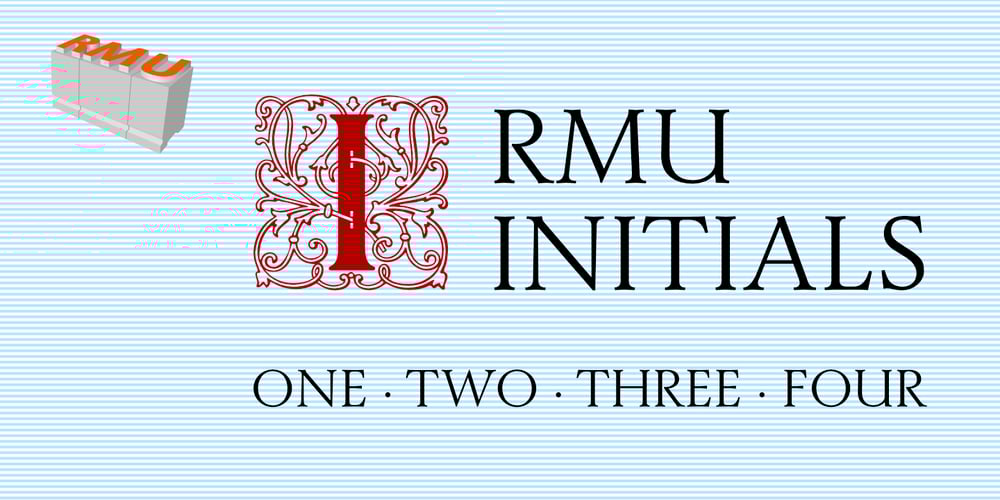
RMU Initials Font Family was designed by Ralph M. Unger and published by RMU. RMU Initials contains 4 styles and family package options. Four fonts entirely of decorative initials of which the uppercase basic letters of RMU Initials One are occupied by Walthari initials, the lowercase ones by Eckmann initials, both released first by Rudhard’sche Gießerei, Offenbach, Germany, about 1900. RMU Initials Two consists of Jubilaeumsinitialen in the uppercases and Augsburger Initialen in the lowercases. RMU Initials Three comes with floral ornaments, whereby the lowercase initials can be colorized by yourself due to non-joining elements. RMU Initials Four consists of hand drawn initials by Rudolf Koch and letters of a former Klingspor font called Queen.